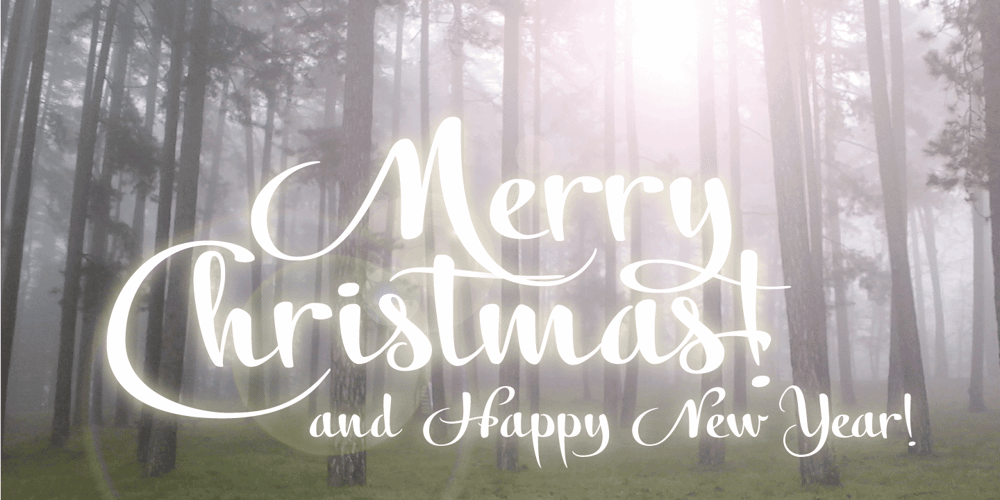
Alfina Notte Font Family was designed by Alberto Pedro Di Santo and published by Eurotypo. Alfina Notte contains 1 styles and family package options. Alfina Notte is a chancery typeface that shows a modern temperament, but is inspired by the eponymous town of Torre Alfina, one of the most beautiful medieval villages of Italy, situated on the edge of the plateau Alfina, a few miles from of Orvieto. The place where is the castle is steeped in history. Its roots date back to the Lombard kingdom (seventh century); later it was under the rule of Monaldeschi (1200-1700) and more recently (1880) the property of the rich French banker Count Edoardo Cahen of Antwerp, who was responsible for the present aspect of the Castle. Alfina Notte is the bold version of Alfina, a type with soft lines, very slender upper cases and thin overlapping strokes; The stylistic alternates are particularly important, and the type is enriched by many, different OpenType features.